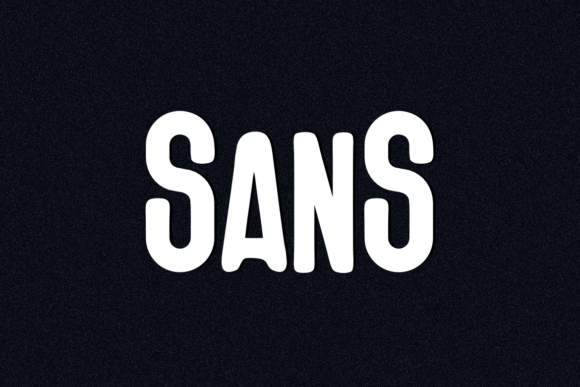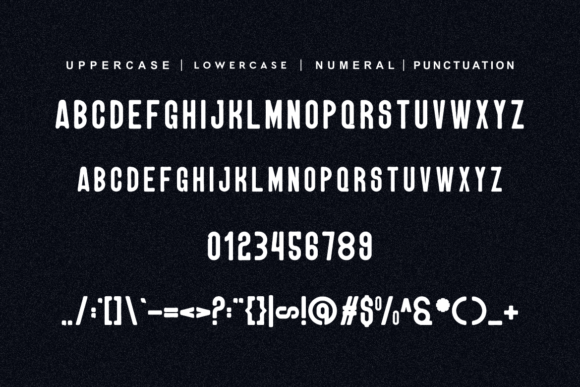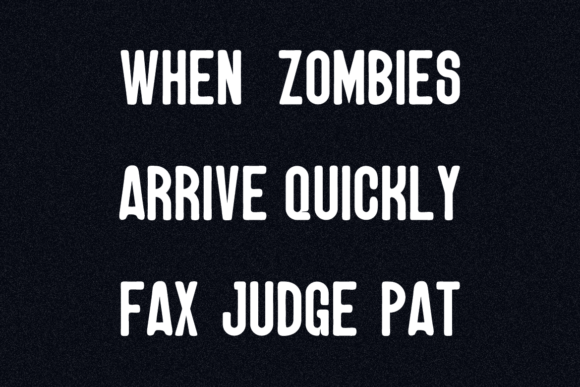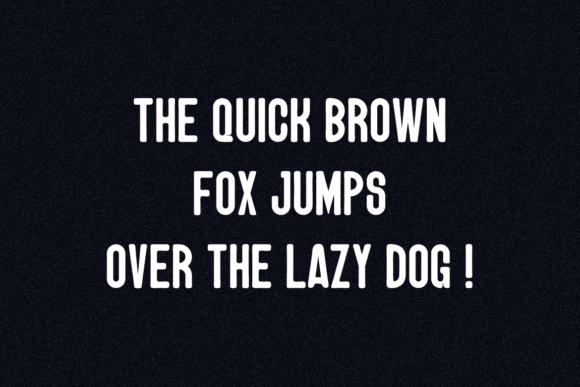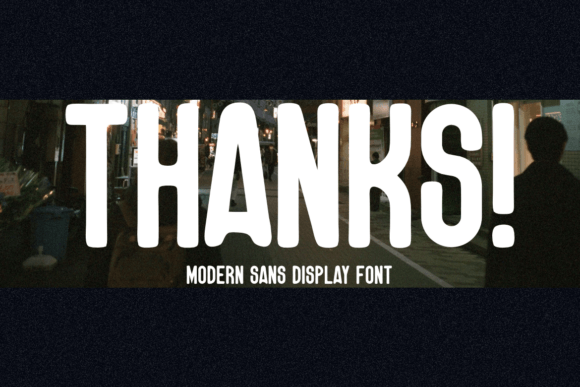
Introduction to Creasid Font
As a designer, have you ever found yourself staring at a blank canvas, trying to bring a creative project to life? The perfect font can make all the difference in elevating your design from bland to grand. That’s where the Creasid Font comes in – a game-changing addition to any designer’s toolkit.
With its sleek, modern sans-serif design and smooth lines, the Creasid Font is the perfect choice for creating a contemporary, professional feel in any design. Whether you’re working on a high-quality brochure, a website with a transparent background, or a logo for a client, this versatile font is sure to impress.
Key Features of Creasid Font
- High-quality, professional design suitable for various creative projects, including logos, posters, and brochures.
- Features a transparent background, allowing for seamless integration with any background or image.
- Designed with a unique, modern aesthetic, making it an excellent choice for designers seeking a distinctive font for their creative project.
Honest Review: Creasid Font
As a designer, I’m always on the lookout for high-quality fonts that can elevate my creative projects. The Creasid Font caught my attention, and I decided to give it a try.
What works well: ✨ The Creasid Font is available for free download, which is a major plus for designers on a budget. It’s also incredibly versatile, with a range of weights and styles that make it perfect for everything from titles to body text. I love the modern, sleek aesthetic of this font, which is sure to add a touch of sophistication to any design project.
What doesn’t: ⚠️ One thing that’s worth noting is that the Creasid Font doesn’t come with a transparent background option, which can be a bit limiting for designers who like to create complex compositions. Additionally, the font’s high quality does come at a cost: it’s a bit heavy on system resources, which can slow down your computer if you’re working with large files.
Overall, I’m impressed with the Creasid Font. While it may have a few limitations, its high quality and versatility make it a valuable addition to any designer’s toolkit. Whether you’re working on a personal project or a commercial design job, this font is sure to deliver.
- High quality and versatile
- Modern, sleek aesthetic
- Range of weights and styles
Tips for Getting the Most Out of Creasid Font
To get the most out of Creasid Font, experiment with different font sizes, colors, and styles to create a unique look. You can also combine the font with other design elements, such as images or graphics, to create a high-quality design.
Creasid Font is commonly used for creative projects, such as graphic design, digital art, and typography. It’s also a great font to use for presentations, reports, and other business documents where a high-quality font is needed.